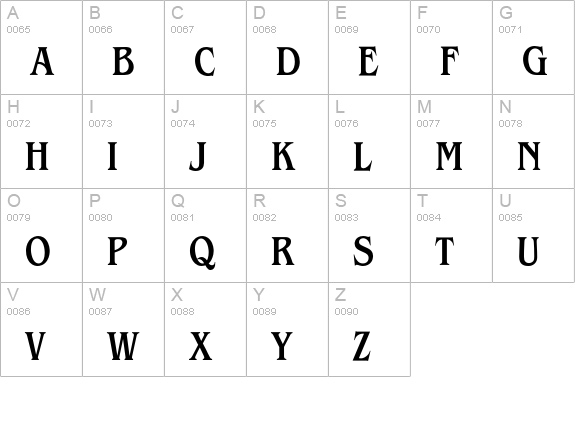
Benguiat* Condensed Medium is a balanced, medium-weight, condensed-width variant in the Benguiat* typeface family \xE2\x80\x94 well suited to sub-headlines, navigation, and balanced editorial work.
Benguiat Condensed Medium font exudes modern elegance with its sleek and sophisticated design. The condensed style adds a touch of sophistication, making it ideal for headlines, logos, and branding projects. The sharp, clean lines of this font convey a sense of professionalism and authority, making it a versatile choice for a wide range of design applications. This font is a popular choice among graphic designers and creatives looking to make a bold statement with their typography. The striking appearance of Benguiat Condensed Medium font commands attention and adds a touch of flair to any project. Best of all, this font is available for free download at FontsMarket.com, making it easily accessible to anyone looking to incorporate this stylish typeface into their designs. Whether you're working on a print project, a website design, or any other creative endeavor, Benguiat Condensed Medium font is sure to make a lasting impression.